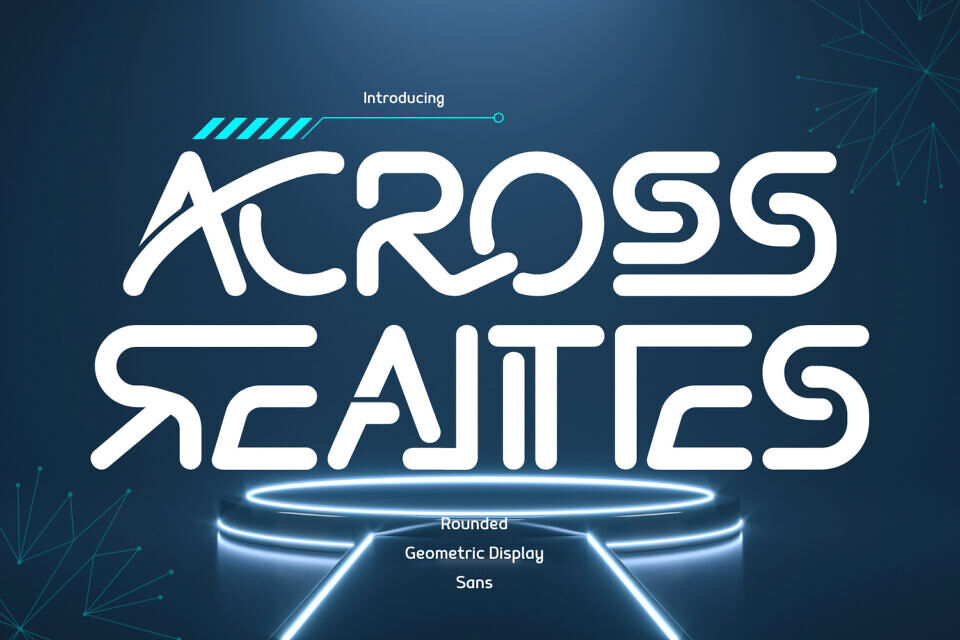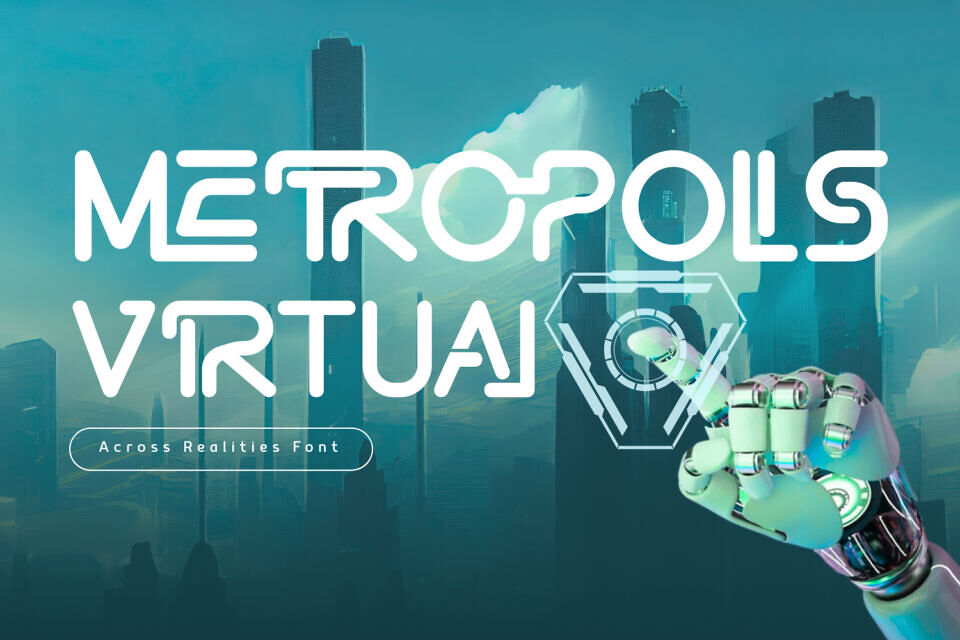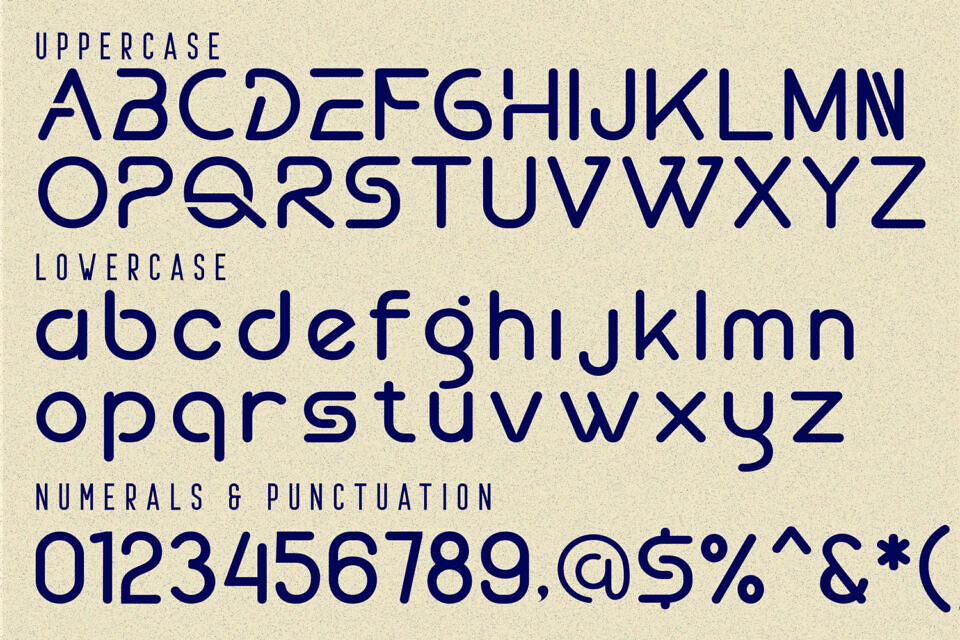
Across Realities Font
Across Realities is a cutting-edge futuristic display font that redefines the intersection of technology and typography. Inspired by circuit board pathways and futuristic architectural lines, this font is engineered for projects that demand a bold, high-tech identity.
ACROSS REALITIES features a consistent monoline weight and unique interlocking ligatures that create a seamless, liquid-metal flow between characters. Its sleek, rounded terminals and strategic stencil gaps make it the ultimate choice for sci-fi movie titles, esports branding, tech startups, and cyber-themed streetwear.